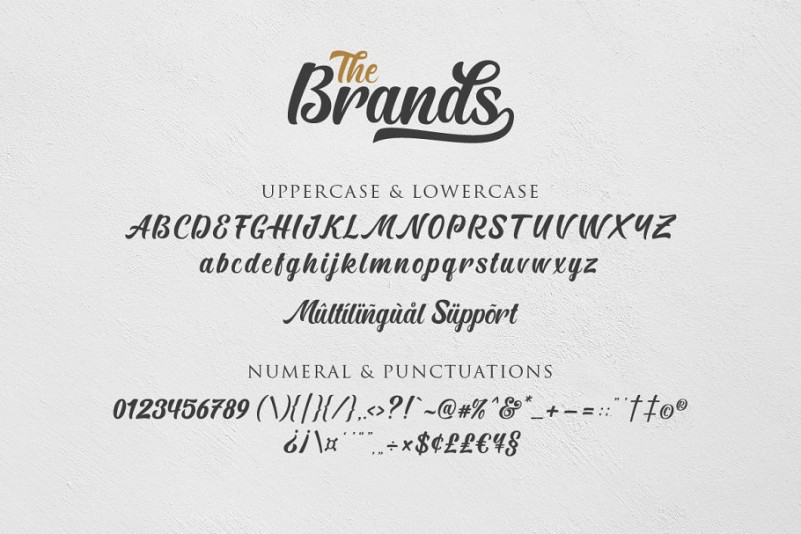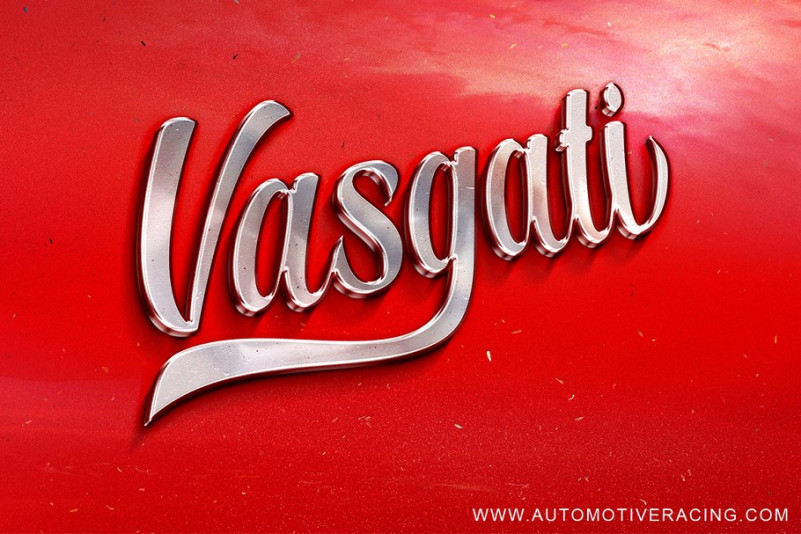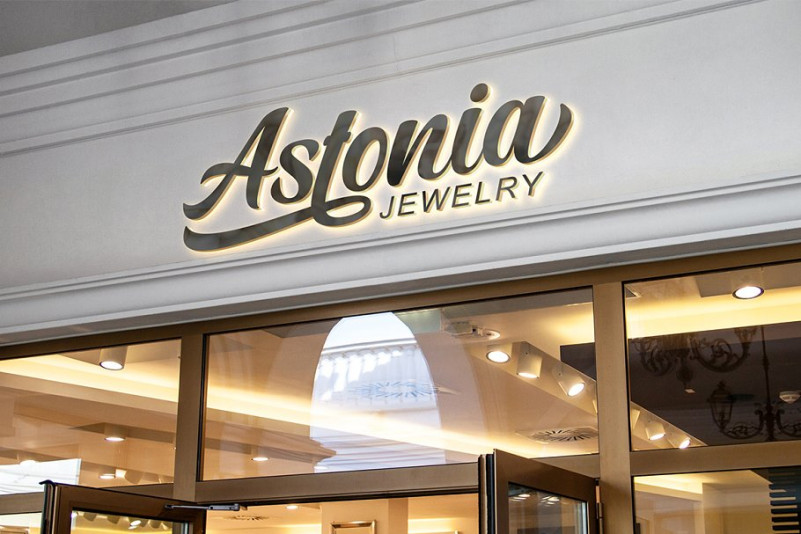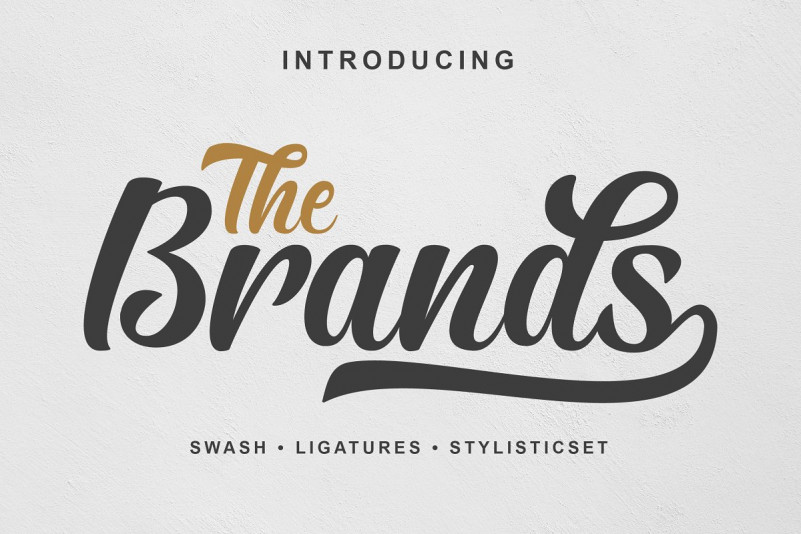
The Brands Script Font
The Brands Font – If you’re looking for a new calligraphic typeface for your project, try this font. It’s dynamic and pretty with swashes. Can used for various purposes. such as the title, signature, logo, wedding invitations, letterhead, signage, labels, newsletters, posters, badges, etc. It’s features Open type feature, including initial and terminal letters,ligatures and International support for most Western Languages is included.